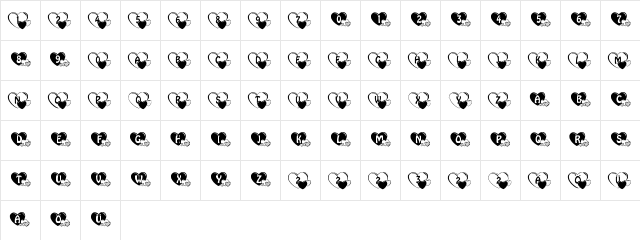
Lieb Mtterlein Regular Font Preview
Lieb Mtterlein Regular
Design Context for Lieb Mtterlein Typeface
Lieb Mtterlein is a composed and adaptable typeface that performs quietly and consistently across a wide range of design contexts.